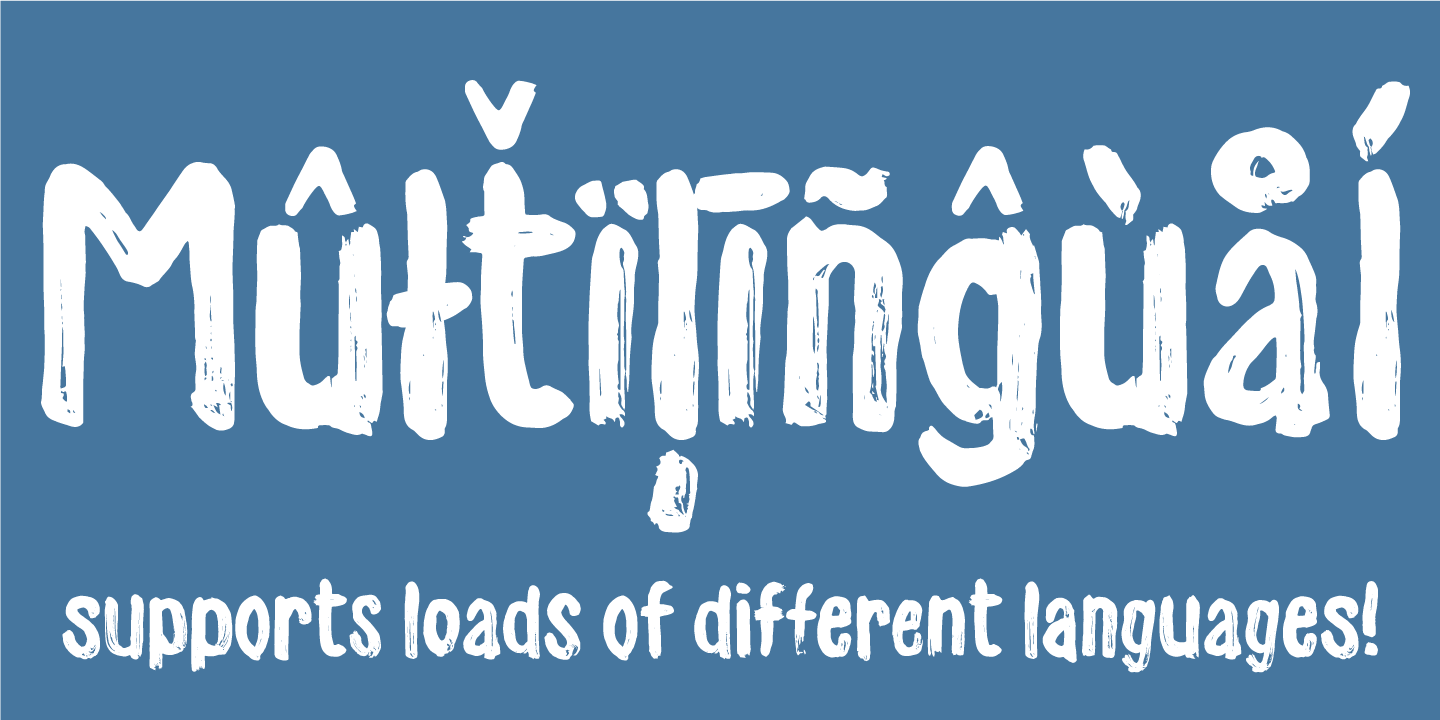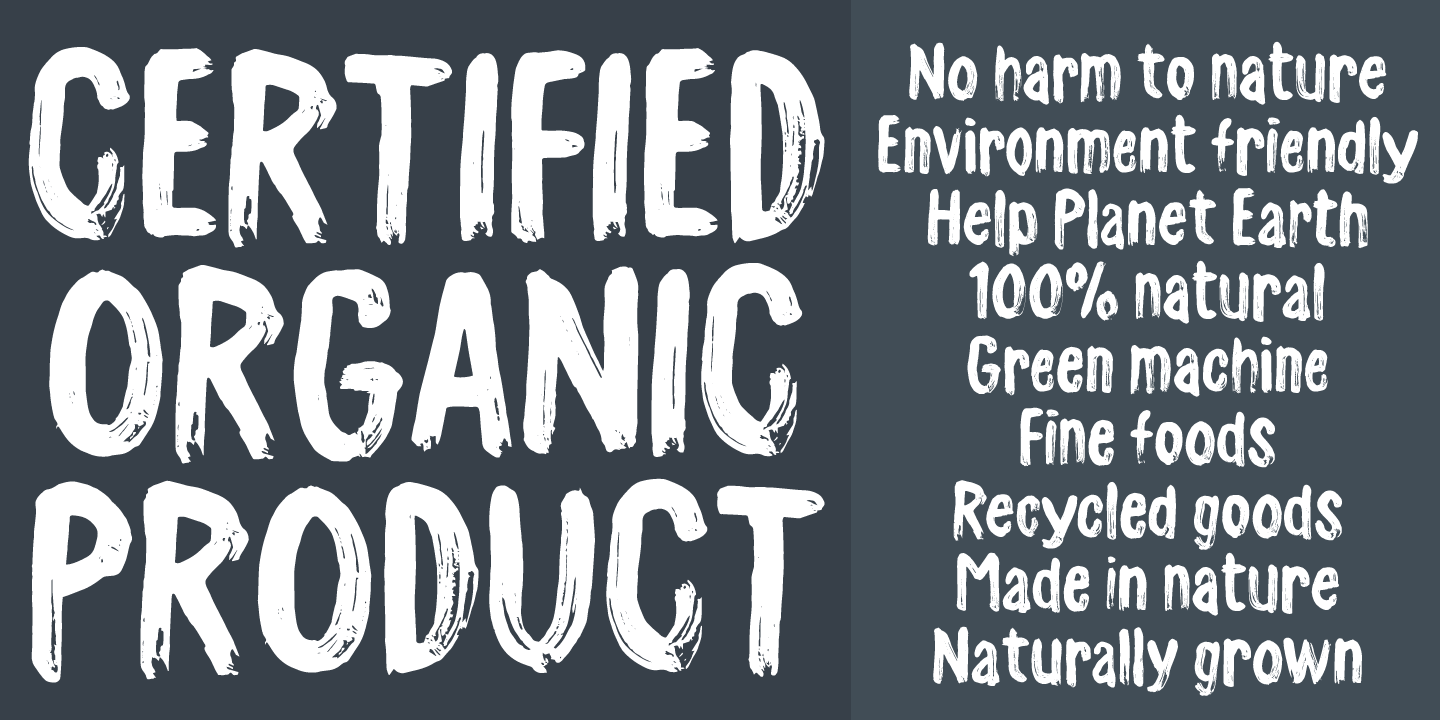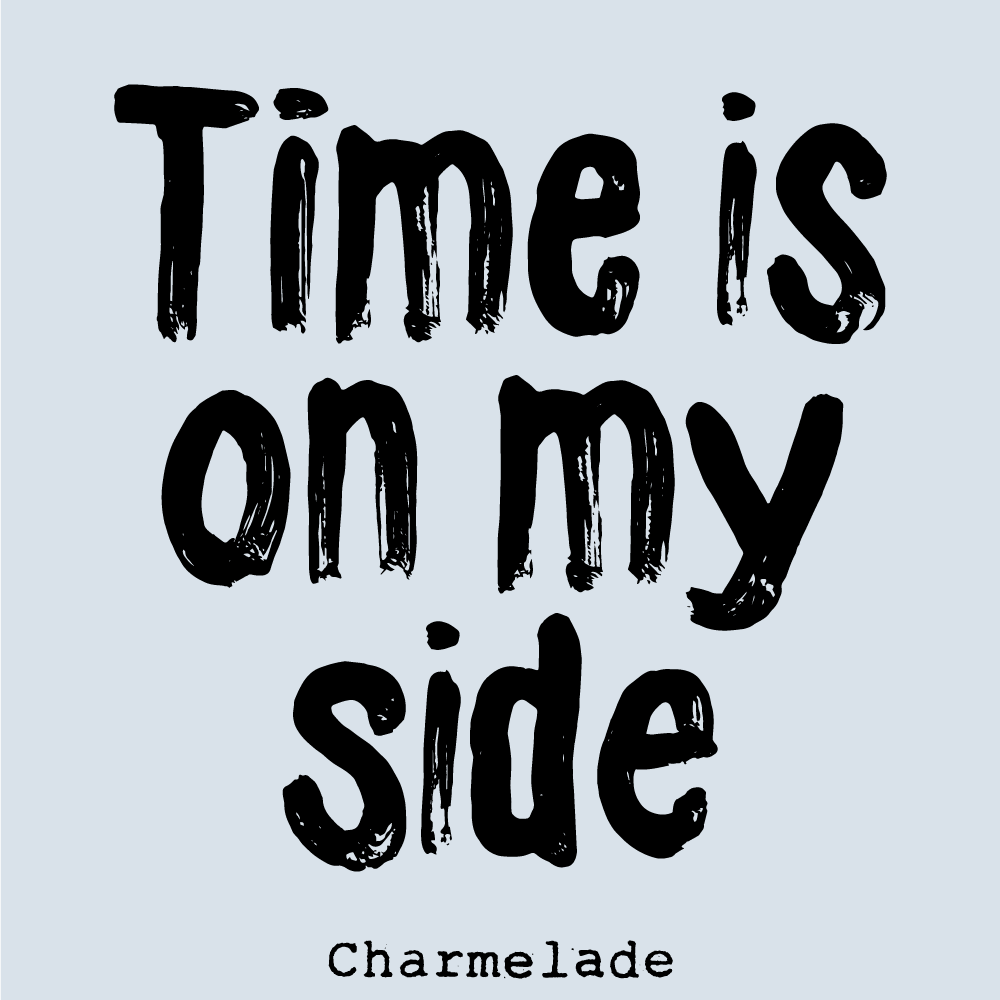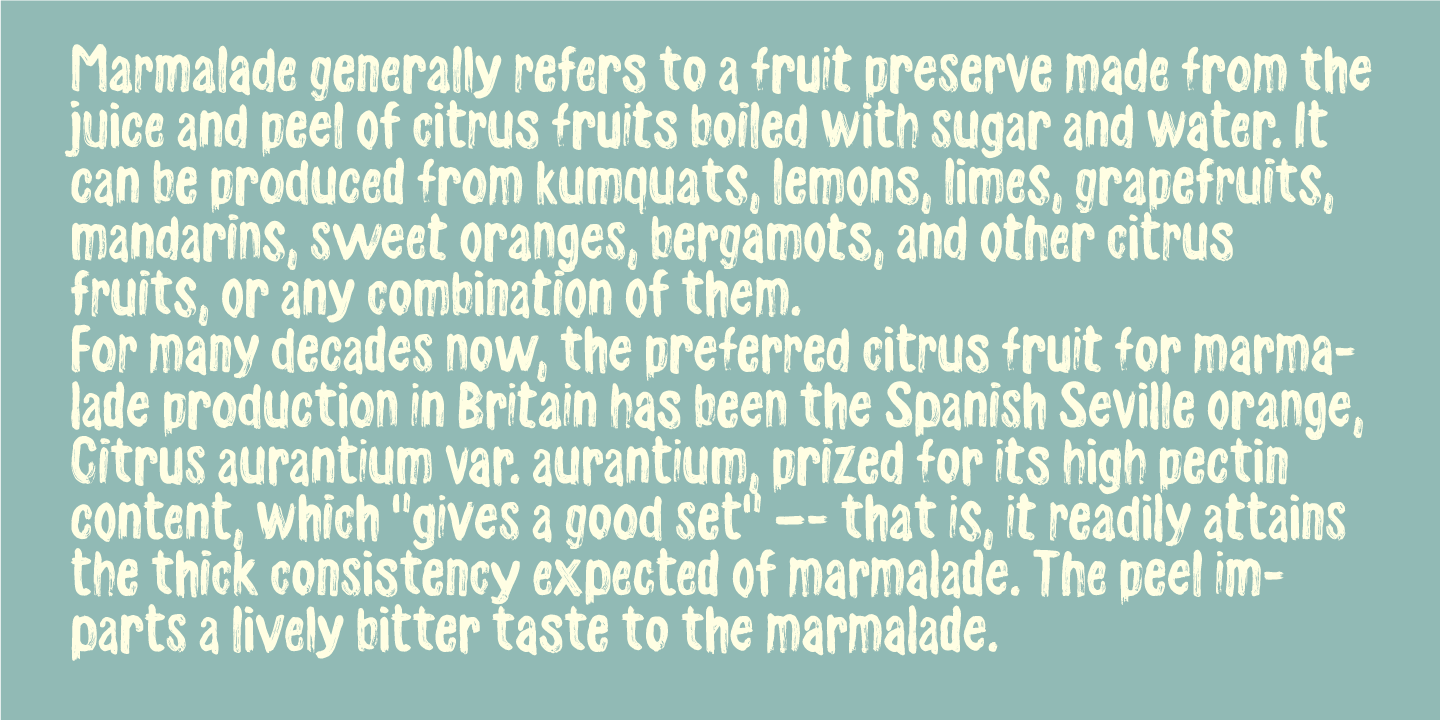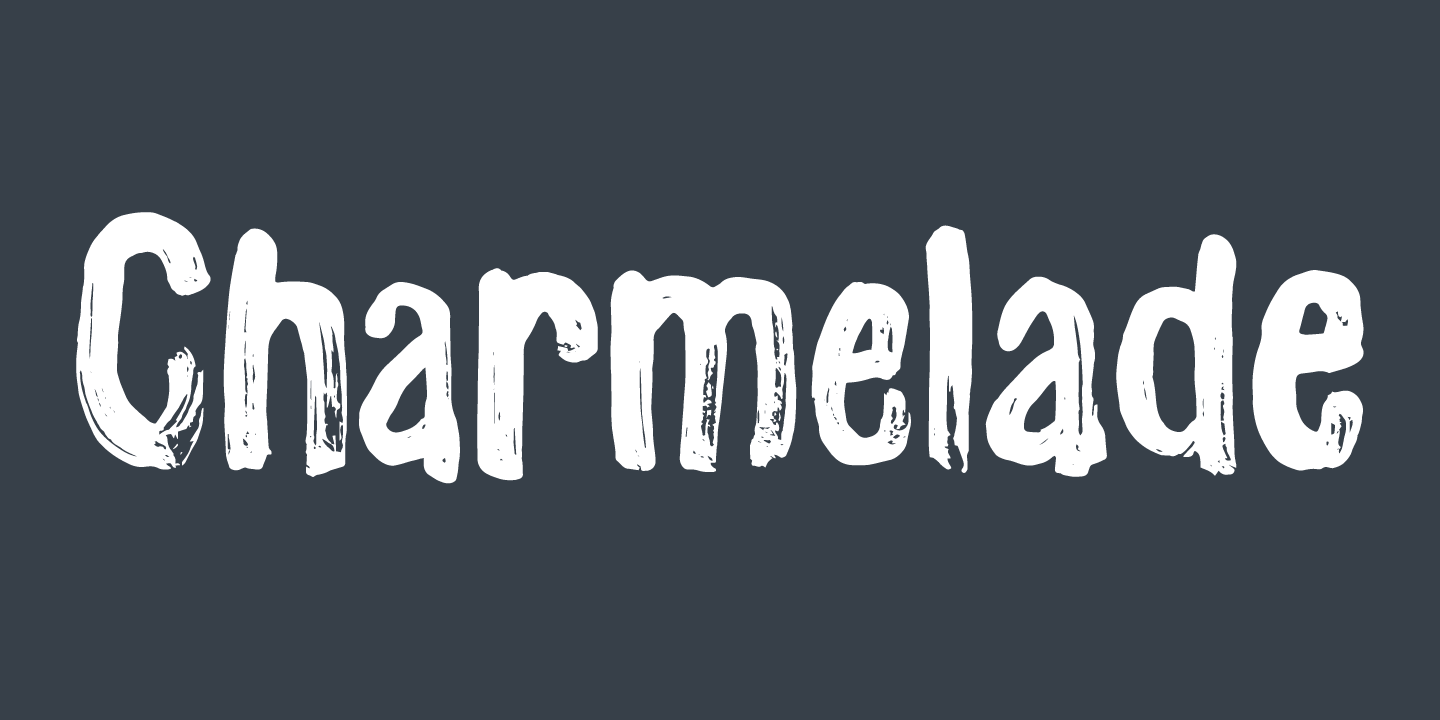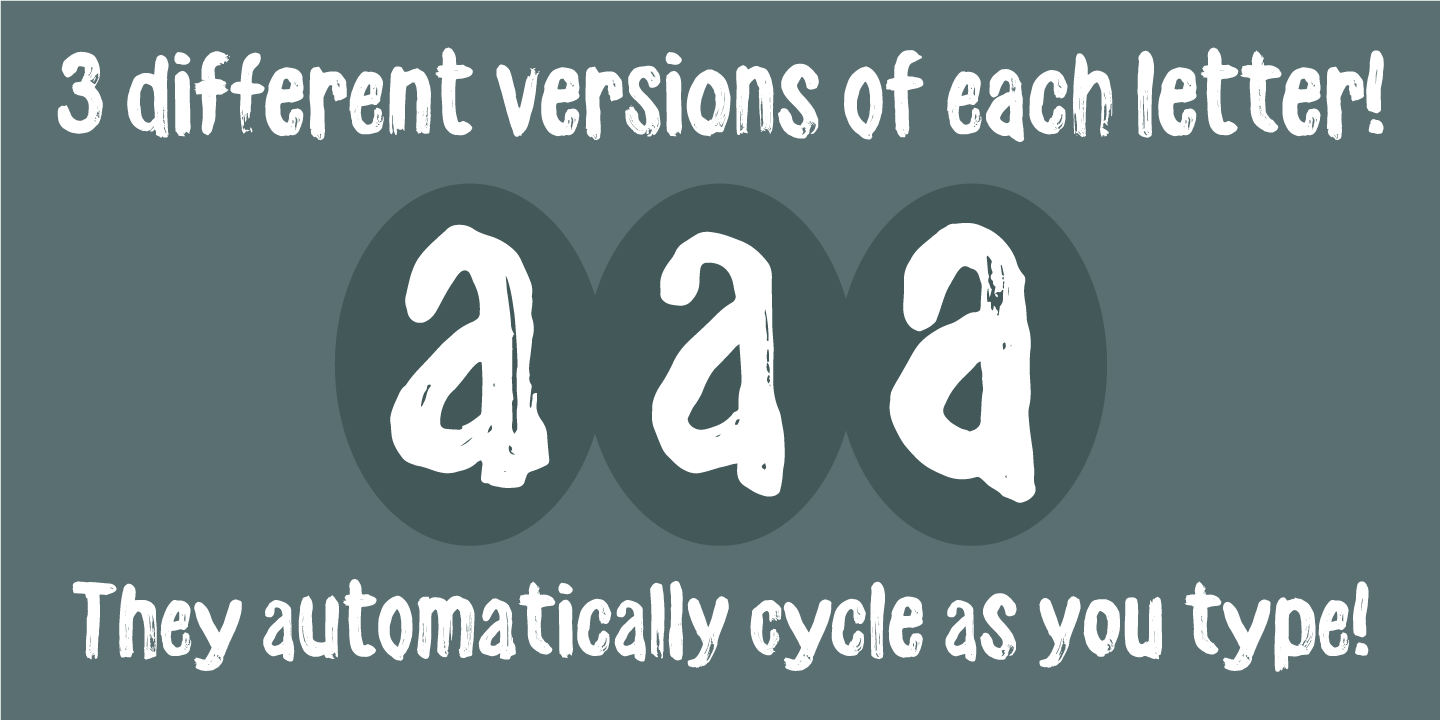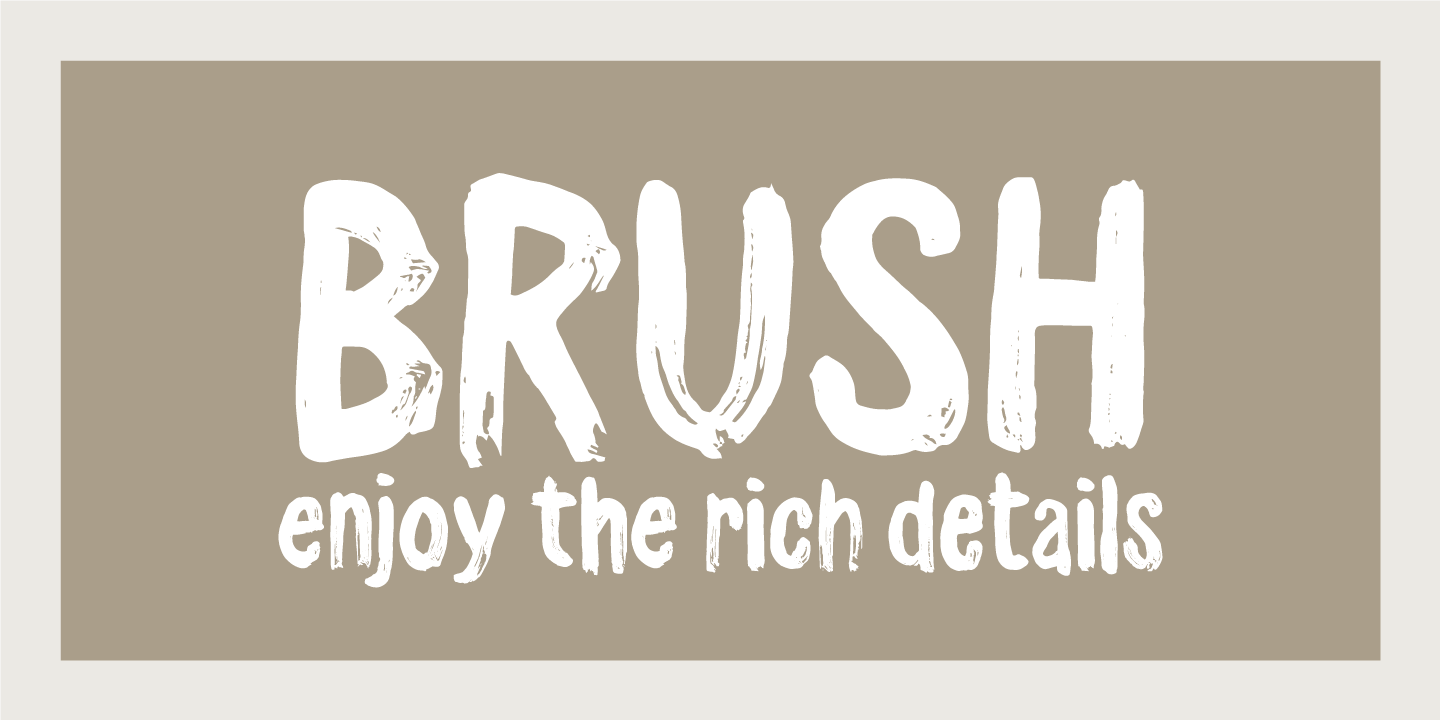
Charmelade
A rough and dry brush was used when making this font. It's super legible even at small sizes, and when viewed at a larger scale, the roughness of the brush comes to life! Looks great with bother lowercase letters or in UPPERCASE only!
The font has multilingual support as well as contextual alternates!